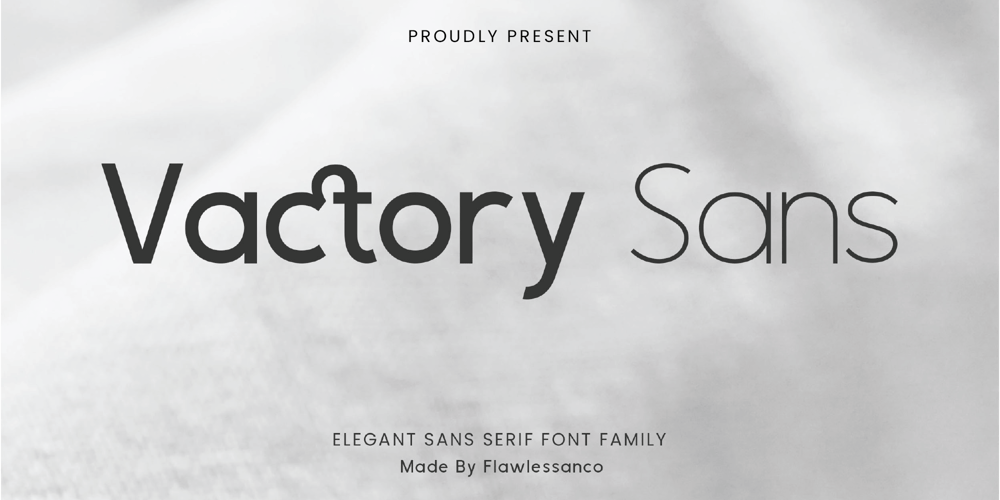
Vactory Sans Font Family was designed by Achmad Yani and published by Flawlessandco. Vactory Sans contains 7 styles and family package options. Vactory Sans – Elegant Sans Serif Font Family, Family Font, Sans Serif Family, Sans Serif Font, Magazine Font, News Paper Font, Modern Font, Elegant Font, Canva Font, Cricut Font, Procreate Font, Branding Font, Logo Font.Introducing Vactory Sans, an elegant sans serif font family that exudes sophistication and style. With its clean lines, geometric shapes, and subtle stroke variations, Vactory Sans is perfect for creating a modern and refined look for your branding, web design, and editorial projects. Vactory Sans consists of various weights ranging from thin to bold styles, including thin, extra light, light, regular, medium, semi-bold, and bold.Keywords: Font Family, Sans Serif Font, Family Sans SerifThere’s some connected letters and some alternates that suitable for any graphic designs such as branding materials, t-shirt, print, business cards, logo, poster, t-shirt, photography, quotes .etcThis font support for some multilingual. Also contains uppercase A-Z and lowercase a-z, alternate character, numbers 0-9, and some punctuation.If you need help, just write me! Thanks so much for checking out my shop!